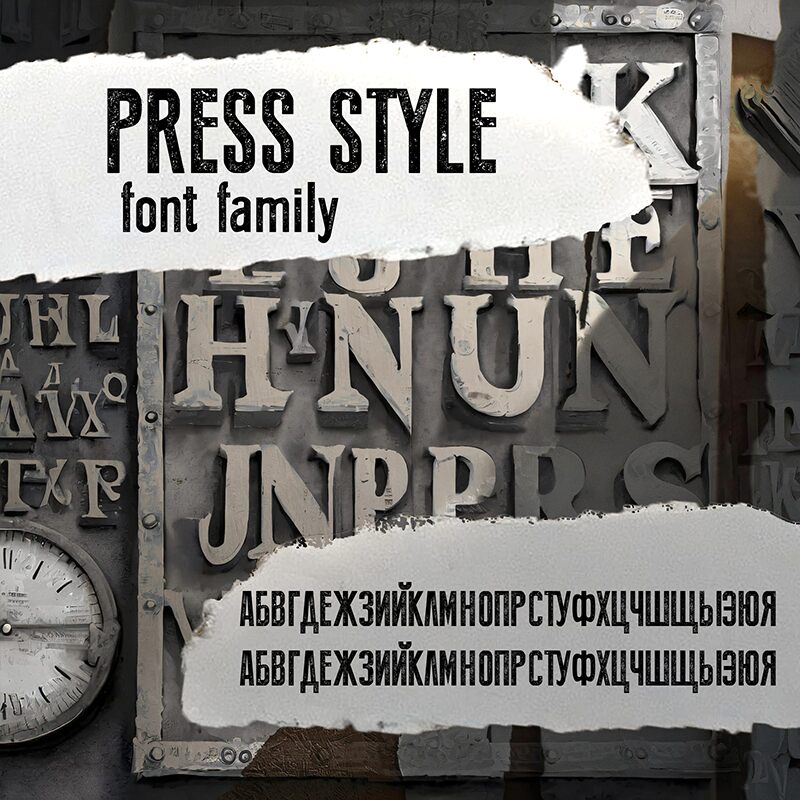
Press Style is a captivating display font that exudes a distinct vintage charm. Its eroded, condensed letterforms evoke a sense of weathered elegance, evoking the timeless allure of old-world printing techniques.
The font's bold, angular aesthetic lends itself effortlessly to a range of design applications, from eye-catching headlines and impactful logos to retro-inspired branding and editorial layouts. Whether you're seeking to infuse your projects with a touch of industrial grit or cultivate a rustic, artisanal aesthetic, Press Style offers a versatile and visually striking solution.
Press Style CY